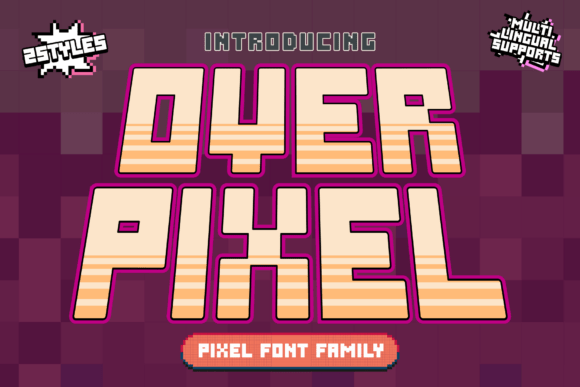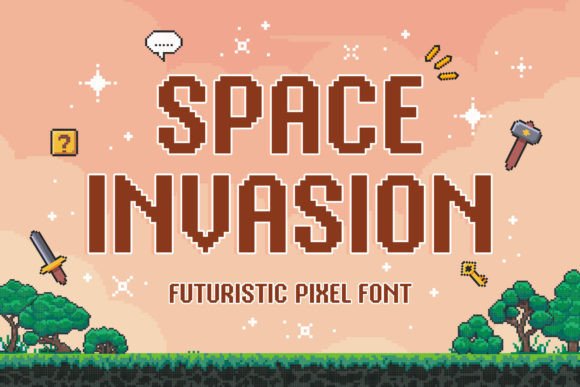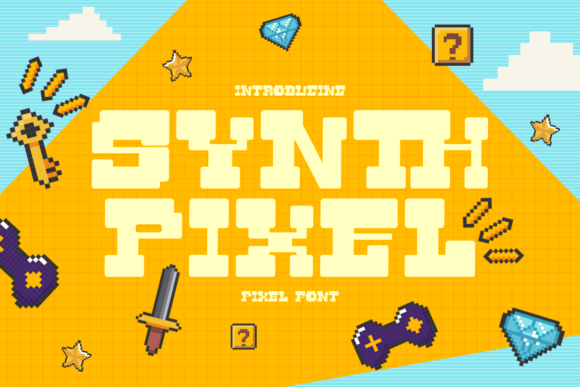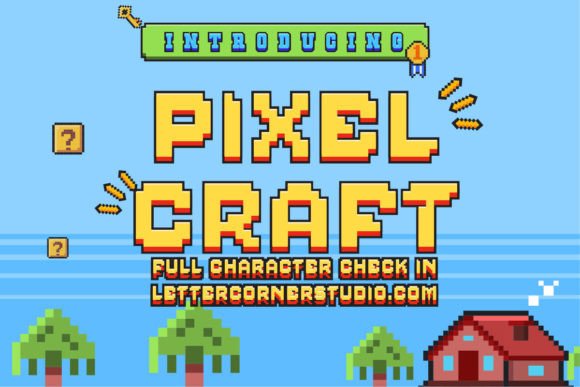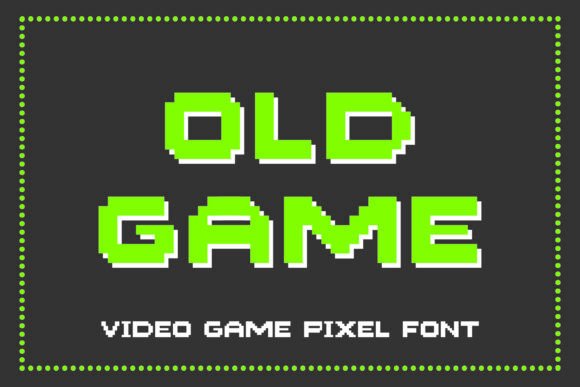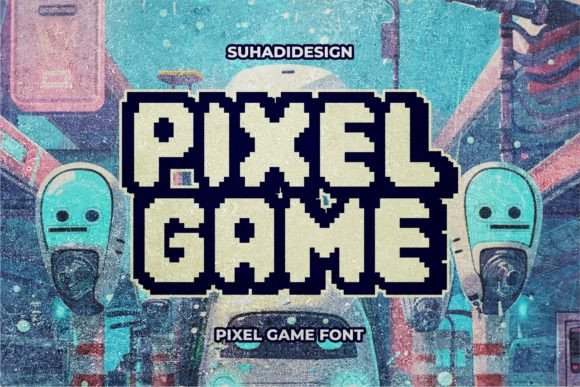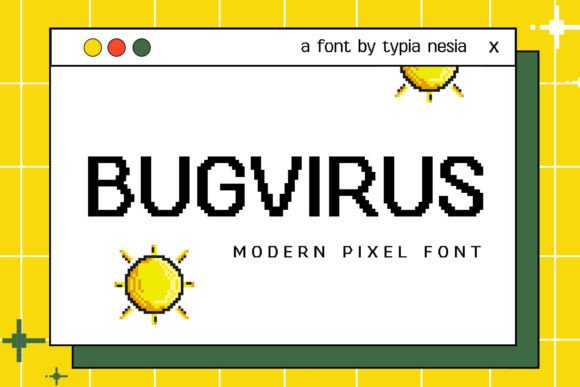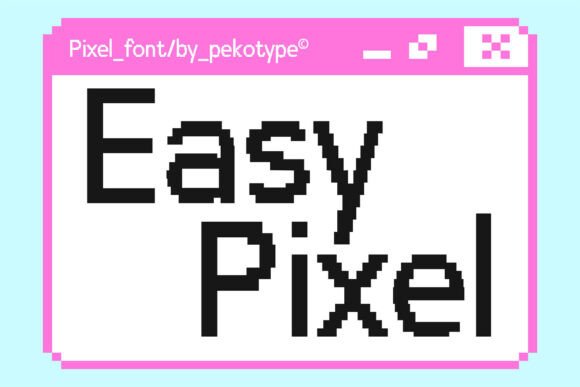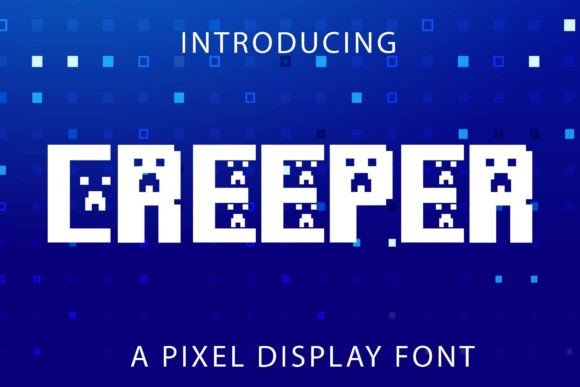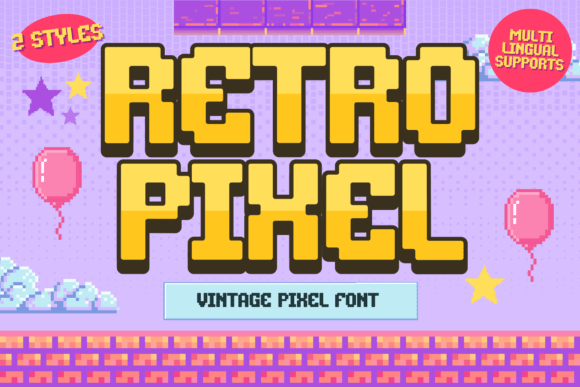
This hand-curated TOP 55 brings together the most eye-catching pixel typefaces for punchy, digital-style visuals. From nostalgic arcade grids to sleek sci‑fi blocks, these files are ready to drop into designs without tricky setup, so you can test bold ideas in minutes instead of hours.
1. Over Pixel Voxel Display Font
Over Pixel is a heavy, square-cut display font with chunky, brick-like letterforms and crisp pixel edges. Inspired by voxel art and sandbox games, it delivers bold structure, fun retro flair, and a full character set for digital titles and UI.
2. Space Invasion Pixel Font
A sharp pixel typeface blending futuristic tech with retro arcade charm. Includes a full character set rendered in crisp, pixel-perfect forms for clean digital display.
3. Synth Pixel Retro Y2K Display Font
Chunky pixel display font blending 8-bit nostalgia with bold Y2K depth. Includes uppercase, lowercase, numerals, punctuation, plus flat and shadow-stacked styles.
4. Pixelcraft Retro Pixel Font
Pixelcraft is a crisp retro pixel font with a classic game-era feel. It includes a full pixel-style character set that keeps designs bold and readable.
5. Old Game Pixel Display Font
Crisp 8-bit pixel display font with square modules and bold, blocky strokes for authentic retro impact. Includes uppercase letters, numbers, and basic punctuation in a compact, readable set.
6. Pixel Game: Cartoon Pixel Dot Display Font
Pixel Game is a crisp pixel display font with a cartoon dot aesthetic. It delivers a cool, contemporary look for retro-styled titles, captions, and graphic layouts.
7. Bugvirus Pixel Font
Bugvirus is a retro pixel font inspired by classic gaming and digital tech. Crisp blocky glyphs deliver an authentic 8-bit look for bold, nostalgic typography.
8. Easy Pixel Retro Font
Clean, blocky pixel-style type with sharp edges and crisp geometry. Includes a full character set suited to retro game vibes and digital interface aesthetics.
9. Creeper Playful Display Font
Creeper is a bold, dynamic display font with adventurous, playful letterforms. It brings vibrant, whimsical energy and imaginative flair to typography.
10. Retro Pixel Arcade Display Font
Nostalgic pixel display font built on a clean grid with a monospaced feel. Includes regular and italic styles with subtle screen-like quirks for authentic 8-bit character.
11. LL Pixel Retro Font
LL Pixel blends crisp pixel geometry with retro charm for a playful look. The set includes a distinctive typeface that adds fun, lighthearted character to layouts.
12. Tallbit Vertical Pixel Font
Clean, vertically stretched pixel type with tall, narrow monospaced letterforms. Delivers a retro-digital, voxel-inspired look with sharp legibility at small sizes.
13. Popart Pixel Inktrap Sans
Bold sans serif typeface with thick strokes and oversized ink traps for a playful Pop Art punch. Solid geometric forms stay readable while delivering a retro-futurist edge.
14. Pixel Perfect Retro 8-Bit Pixel Font
Sharp, grid-based pixel lettering with a nostalgic 8-bit feel. Crisp readability and blocky forms suit UI text, pixel art titles, and digital craft layouts.
15. Pixel Daze Retro Pixel Font
Retro pixel art typeface with crisp, blocky character design. Includes 26 uppercase letters and 0–9 numerals in OTF and TTF formats for broad compatibility.
16. Game Paused Retro Pixel Display Font
Retro pixel display font with a futuristic 00s game vibe and crisp geometric forms. Includes 6 styles: Regular, Slant, Outline, Extrude, Outline Slant, and Extrude Slant.
17. Plump Pixel 8-Bit Bouncy Game Font
Bouncy 8-bit pixel font with plump, chubby letterforms and crisp retro charm. Adds lively arcade energy and playful readability to headlines and UI text.
18. Compixs Retro Pixel Display Font
Compixs is a retro pixel display font with crisp, game-inspired character. It delivers bold, blocky letterforms suited to logos, posters, covers, and headlines.
19. Pixel Retro Display Font
Pixel Retro is a bold display font with a classic arcade feel. It includes varied pixel-style letterforms for striking, nostalgic headlines.
20. Mleitod Retro Pixel Display Font
Mleitod is a fun retro pixel display font with a bold, funky rhythm. It includes a distinctive pixel-styled character set built for punchy titles and graphic layouts.
21. Easy Pixel Modern Retro Arcade Font
A modern pixel font blending retro arcade nostalgia with Y2K digital edge. Clean grid-based glyphs stay sharp and legible across logos, posters, packaging, and interfaces.